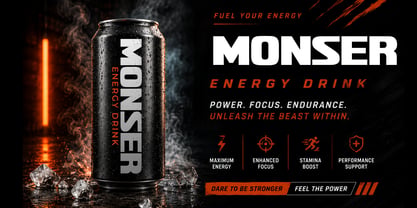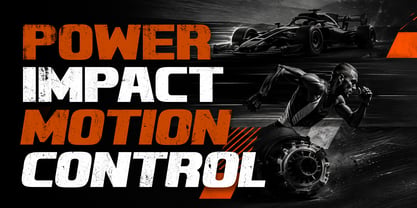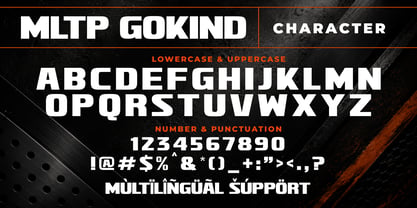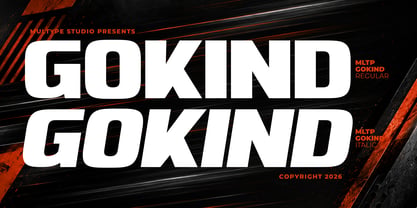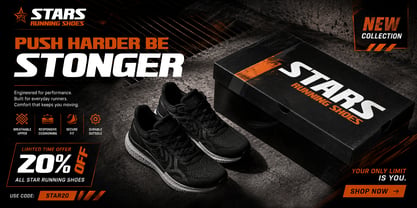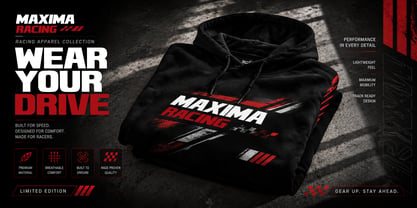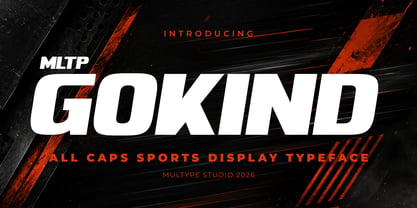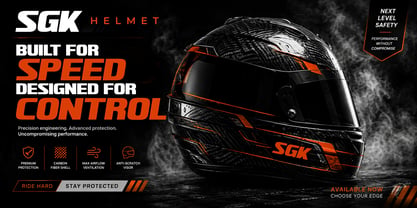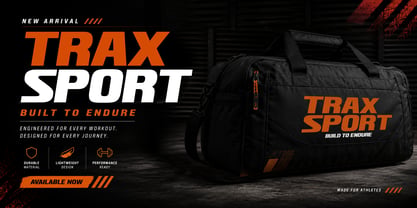
MLTP Gokind
by Multype Studio
The MLTP Gokind Font Family was designed by Mulia Yanto and published by Multype Studio. MLTP Gokind contains 2 styles and family package options. More about this family
MLTP Gokind is a bold sports & industrial display font built for projects that demand strength, impact, and maximum visibility. Featuring powerful geometric letterforms, squared edges, and a modern athletic style, this font is perfect for sports branding, automotive graphics, racing apparel, esports, gaming, packaging, posters, headlines, logos, merchandise, and promotional designs.
Designed with high readability and a commanding presence, MLTP Gokind performs exceptionally well in both print and digital media. Whether you're creating sportswear branding, fitness campaigns, motorsport graphics, YouTube thumbnails, product packaging, or advertising materials, this typeface delivers a bold, energetic, and professional look.
MLTP Gokind includes all caps letters, regular & italic, numbers, punctuation, symbols, and multilingual support, making it a versatile choice for designers looking to create powerful branding and commercial designs. Its clean industrial aesthetic combines modern simplicity with aggressive character, making it ideal for contemporary creative projects that need to stand out.
Designers: Mulia Yanto
Foundry: Multype Studio